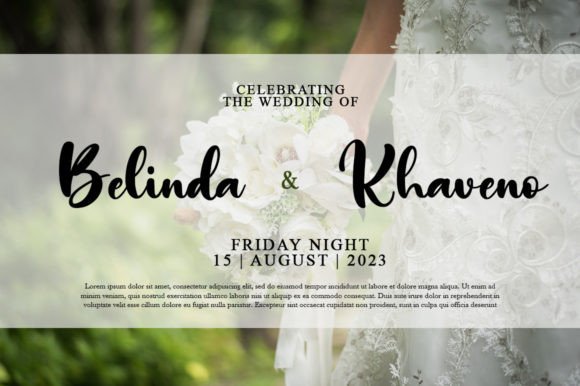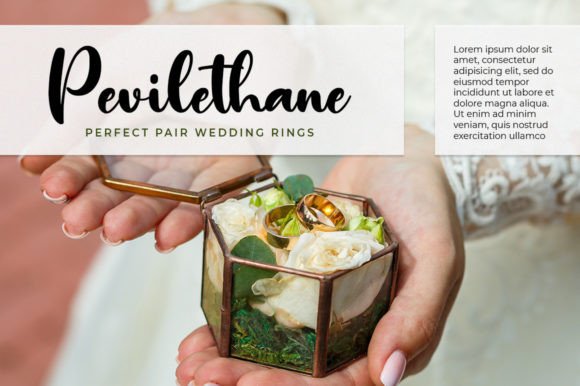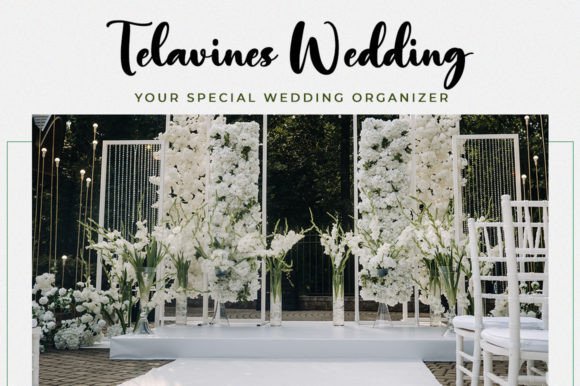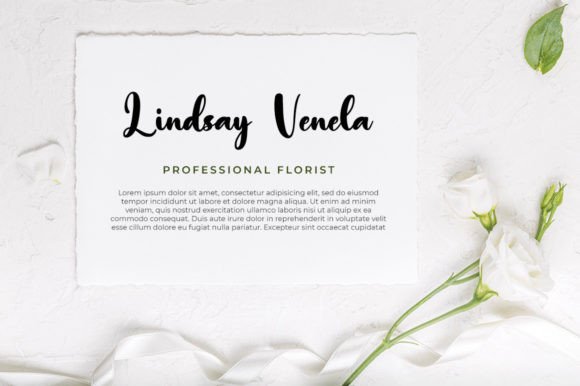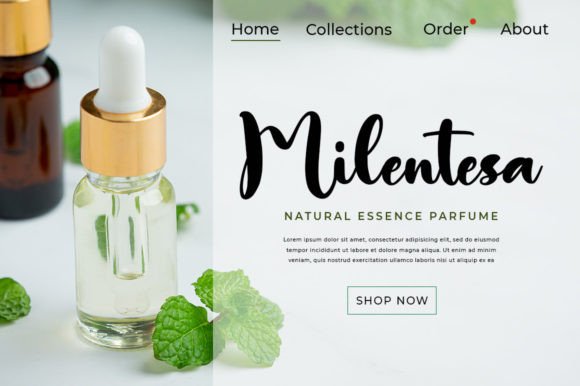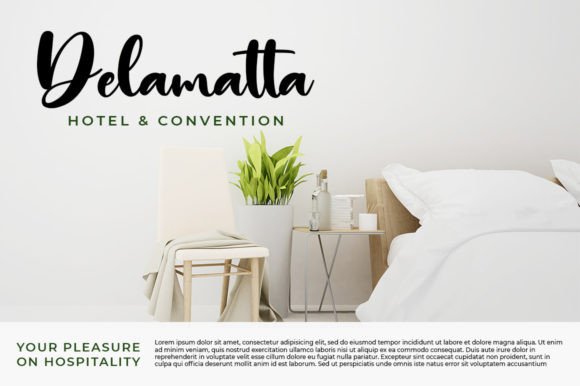
Introduction to Jehanilla Font
As a designer, you’ve been there – staring at a blank canvas, trying to bring your creative vision to life. The perfect font can make all the difference, elevating your project from bland to grand. And that’s exactly what the Jehanilla Font does – it adds a touch of elegance, class, and modernity to your design.
With its beautiful script design, Jehanilla Font is a game-changer for designers looking to add a personal touch to their latest art project. Whether you’re working on a logo, branding, invitation, or social media post, this high-quality font is sure to make your design stand out. And the best part? It’s available for free download, making it an invaluable resource for any creative project.
Key Features of Jehanilla Font
- High-quality design resource ideal for creative projects, offering a unique and stylish touch.
- Includes 2 font styles, providing versatility for a wide range of creative projects.
- Designed with a modern aesthetic, making it a great choice for contemporary design projects.
Honest Review: Jehanilla Font
I recently had the chance to work with the Jehanilla Font for a creative project, and I must say it’s been a fantastic experience. This high-quality font has been a great design resource, offering a unique touch to my project.
What works well is its versatility and elegant design. Jehanilla Font comes with a transparent background, making it easy to use on any background image or color scheme. Its beautiful, intricate design elements make it perfect for projects that require a touch of sophistication and style.
- ✨ Elegant design with intricate details
- ✨ Versatile and suitable for various projects
- ✨ High-quality and clear typography
One limitation I’ve noticed is that Jehanilla Font might not be the best choice for projects that require a bold, eye-catching font. Its design is more suited for subtle, elegant applications.
Overall, I’m impressed with Jehanilla Font and would recommend it to anyone looking for a high-quality design resource for their creative project. Its free download and transparent background make it an excellent choice for designers.
Jehanilla Font is a high-quality, elegant script font perfect for creative projects. It’s available for free download with a transparent background, making it easy to integrate into your designs.
For best results, use Jehanilla Font in conjunction with other elegant design elements, such as cursive lines and floral patterns.
Common Use Cases for Jehanilla Font
Jehanilla Font is perfect for:
- Birth announcements and baby shower invitations.
- Wedding day signs and decorations.